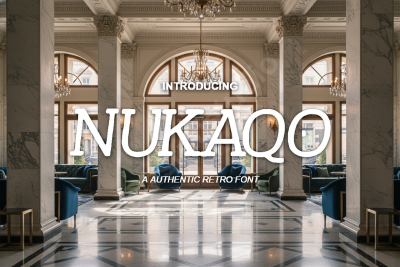
Nukaqo - Elegant Minimalist Serif Font
Nukaqo - Elegant Minimalist Serif brings a confident, polished presence to any design, from business materials to creative campaigns.